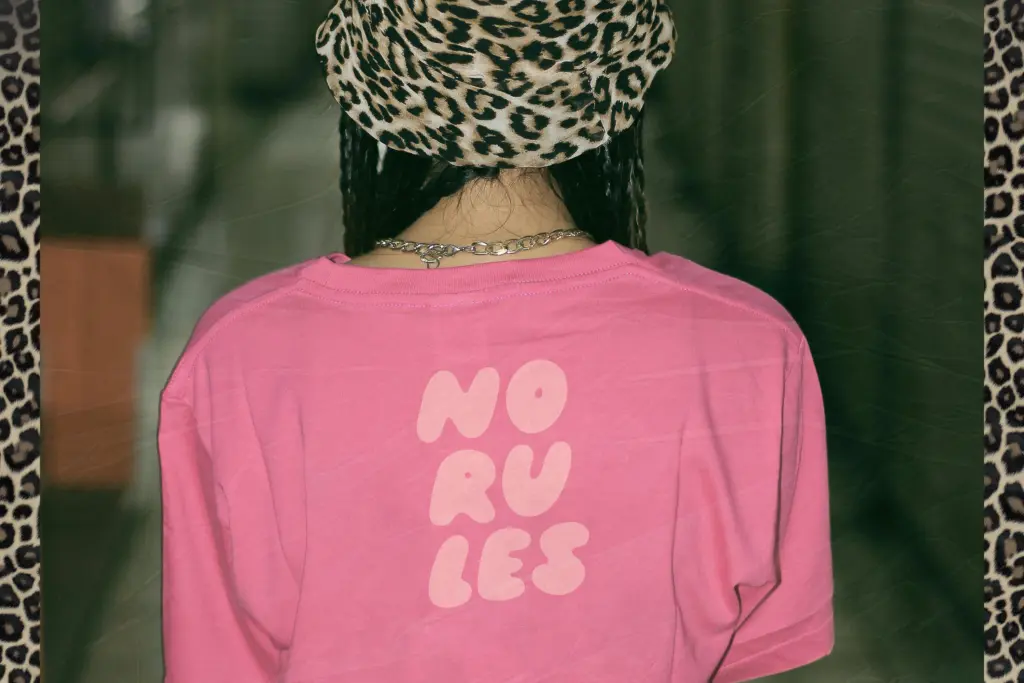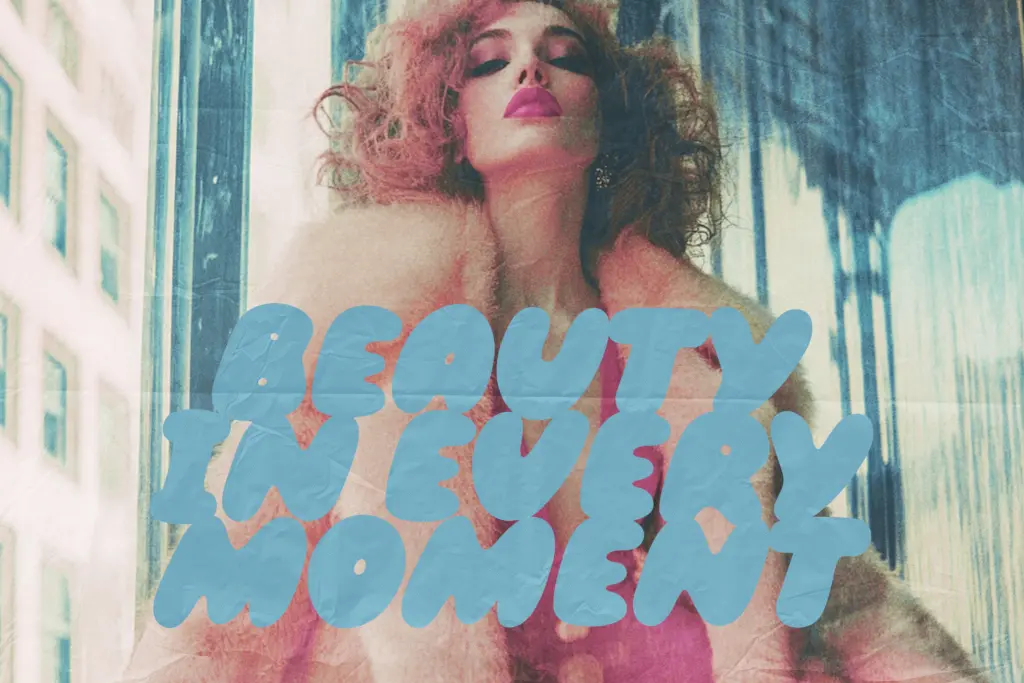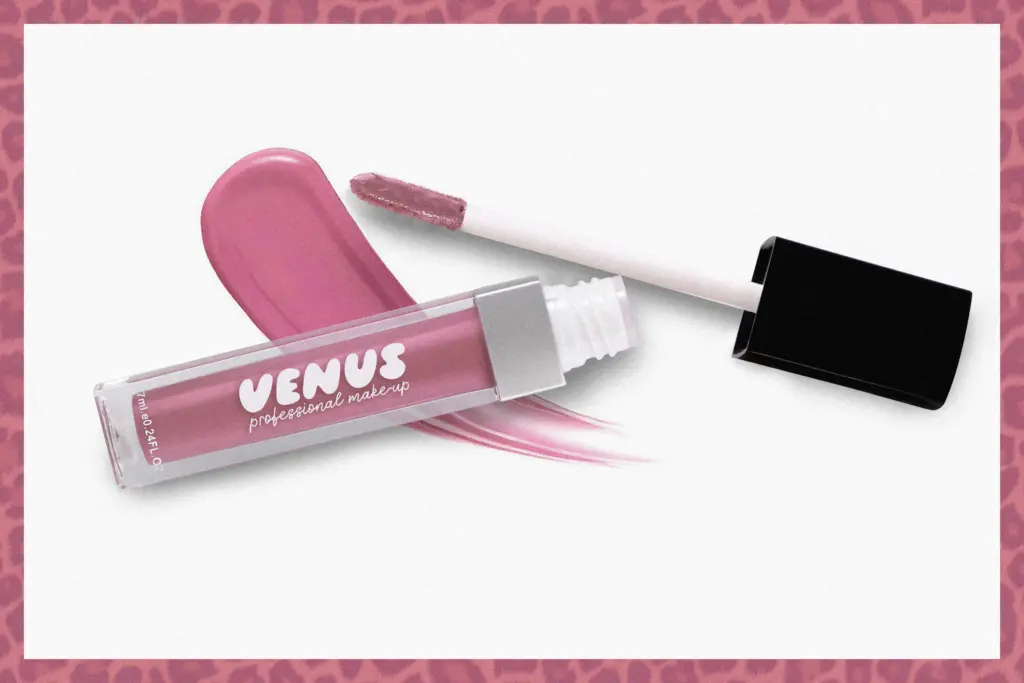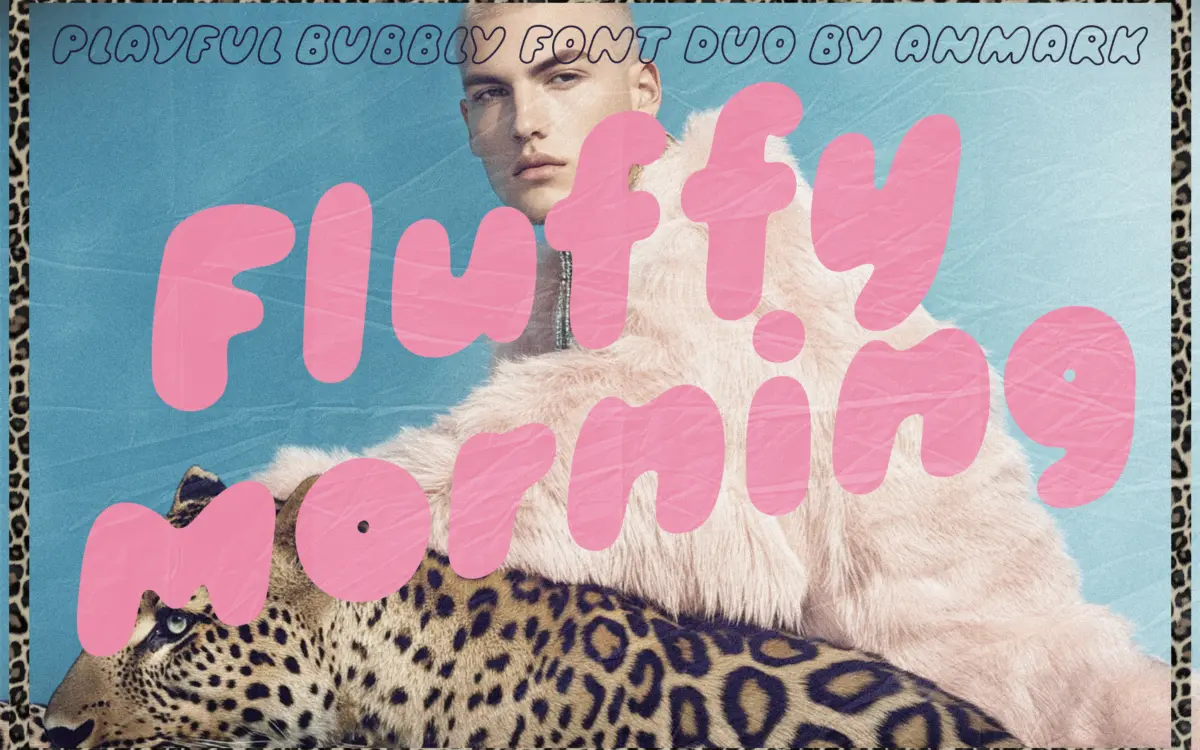
Fluffy Morning Font Free Download
Fluffy Morning is a bubble sans in the strict sense: every stroke has been inflated until the letters read as swollen, rounded shapes rather than lines with thickness. The duo gives you a Bold weight and a matching Outline, both built on the same skeleton so they layer cleanly if you want a shadow or a two-tone effect. There’s no attempt at restraint here — bowls are wide, counters are tight, and terminals are blunt and rounded rather than cut square. That’s the whole idea, and it’s executed consistently across the alphabet rather than fading out on the trickier letters, which is where a lot of bubble fonts fall apart.
The rhythm is even, which matters more than people expect with a face this exaggerated. Letters like m, w and the round bowls of b, o, p carry a similar visual weight, so a word doesn’t lurch between fat and thin patches. It’s a friendly, slightly retro shape language — closer to a 1970s sticker or a cereal box than to contemporary rounded sans faces, which tend to be more restrained.
Both styles cover an extended Latin character set, with accented characters for Spanish, German, French, Italian, Portuguese and the Nordic languages, so it’s usable well beyond English-only copy. That’s a genuine practical plus for a novelty face — a lot of hand-lettered or bubble styles stop at basic Latin and leave you stranded the moment a client needs an umlaut or an ñ.
What it doesn’t have is much nuance. There are no ligatures, no alternate characters, no small caps or numeral sets to speak of — this is a font that does one job, in two versions of the same job. The Outline style is the more useful of the pair for layering; on its own it reads thinner and a little less confident than the Bold, which is really the star. Formats cover OTF, TTF, WOFF and WOFF2, so it’s ready for both desktop and web use without conversion.
This is a headline and lockup font, not a text font, and it knows it. At display sizes — logos, stickers, packaging call-outs, social media titles — the bubble shapes read instantly and the rounded warmth comes through exactly as intended. Children’s brands, casual food packaging, greeting cards and playful fashion labels are the obvious fits; the Bold style especially has enough presence to anchor a logotype on its own.
Where it struggles is anywhere near body copy. Set small, the tight counters close up and the bubbles start to look like blobs rather than letters — legibility drops off fast below headline sizes. It also doesn’t pair well with itself for hierarchy; because Bold and Outline share a skeleton, you’ll want a plain sans or serif alongside it for supporting text rather than trying to build a whole layout from the duo. Used as intended — short words, big sizes, one strong idea per layout — it does exactly what it promises.
- Consistent bubble shapes across the whole alphabet, no weak letters where the style breaks down
- Extended Latin character support covers most Western European languages out of the box
- Bold and Outline styles share a skeleton, so they layer together cleanly for two-tone effects
- Legibility drops sharply below display sizes as counters close up
- No ligatures, alternates or extra character variety — it's a one-note font by design
Fluffy Morning does one thing — chunky, rounded bubble letters — and does it consistently across a solid extended-Latin set. It's a headline and logo font, not a text font, and it makes no pretence otherwise. Fine for playful branding and stickers, but don't ask it to carry a paragraph.